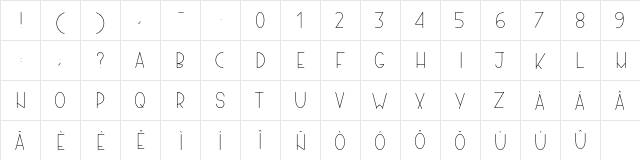
Marie Thin
Design Context for Marie Typeface
Marie offers clean, dependable letterforms without strong stylistic allegiance, making it a practical choice for designers who need flexibility. Its slender proportions lend an understated elegance to any composition.
Pro Tip: Use Marie in both headline and body roles to test its range before committing to a single application.